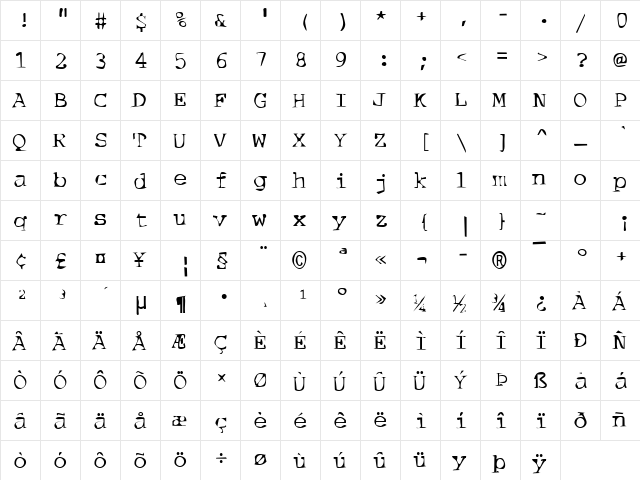
Dirty07 Becker Regular Font Preview
Dirty07 Becker Regular
Design Context for Dirty07 Becker Typeface
Dirty07 Becker takes a measured approach to typography — its balanced proportions and neutral character make it a reliable workhorse for both digital and print work.
Pro Tip: Use Dirty07 Becker in both headline and body roles to test its range before committing to a single application.